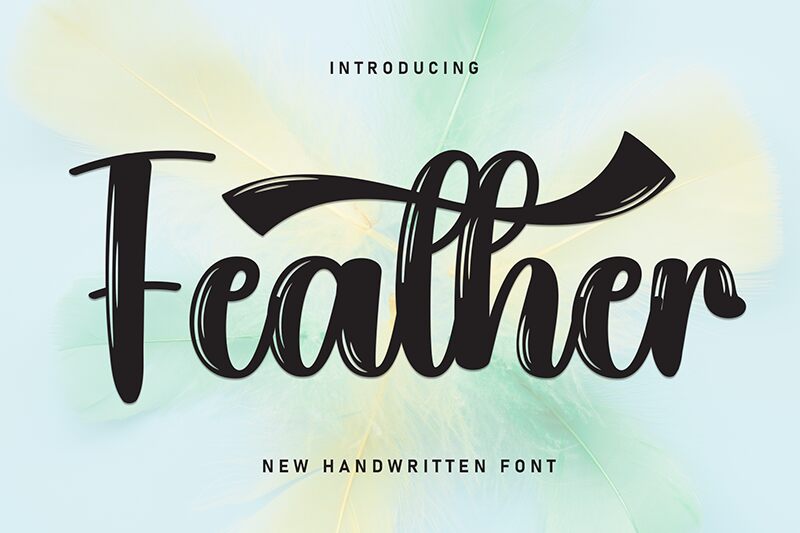
Feather
Feather font from Scratchones is a casual brush font with a textured, modern, and fluid style. Each letter features slight imperfections that add to its artistic flair and enhance the text’s vividness. The writing has a relaxing feel that brings more freedom in creative applications and makes it more user-friendly for less trained designers.
Designers are able to use this free handwritten font for art signatures, poster typography, book covers, wedding invitations, social media posts, and advertisements. It also looks nice when used in product packaging labels and other branding activities such as logos or apparel print.